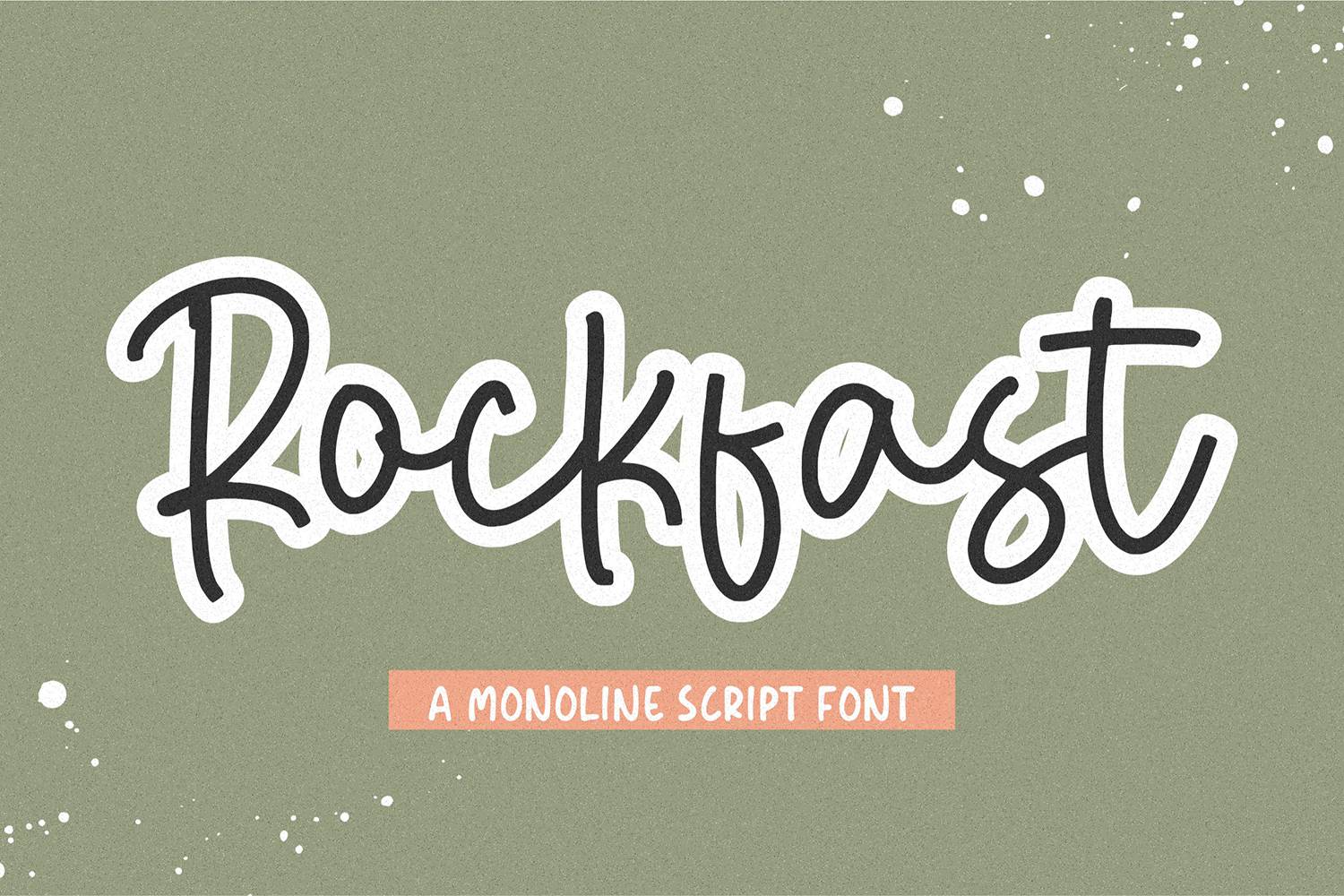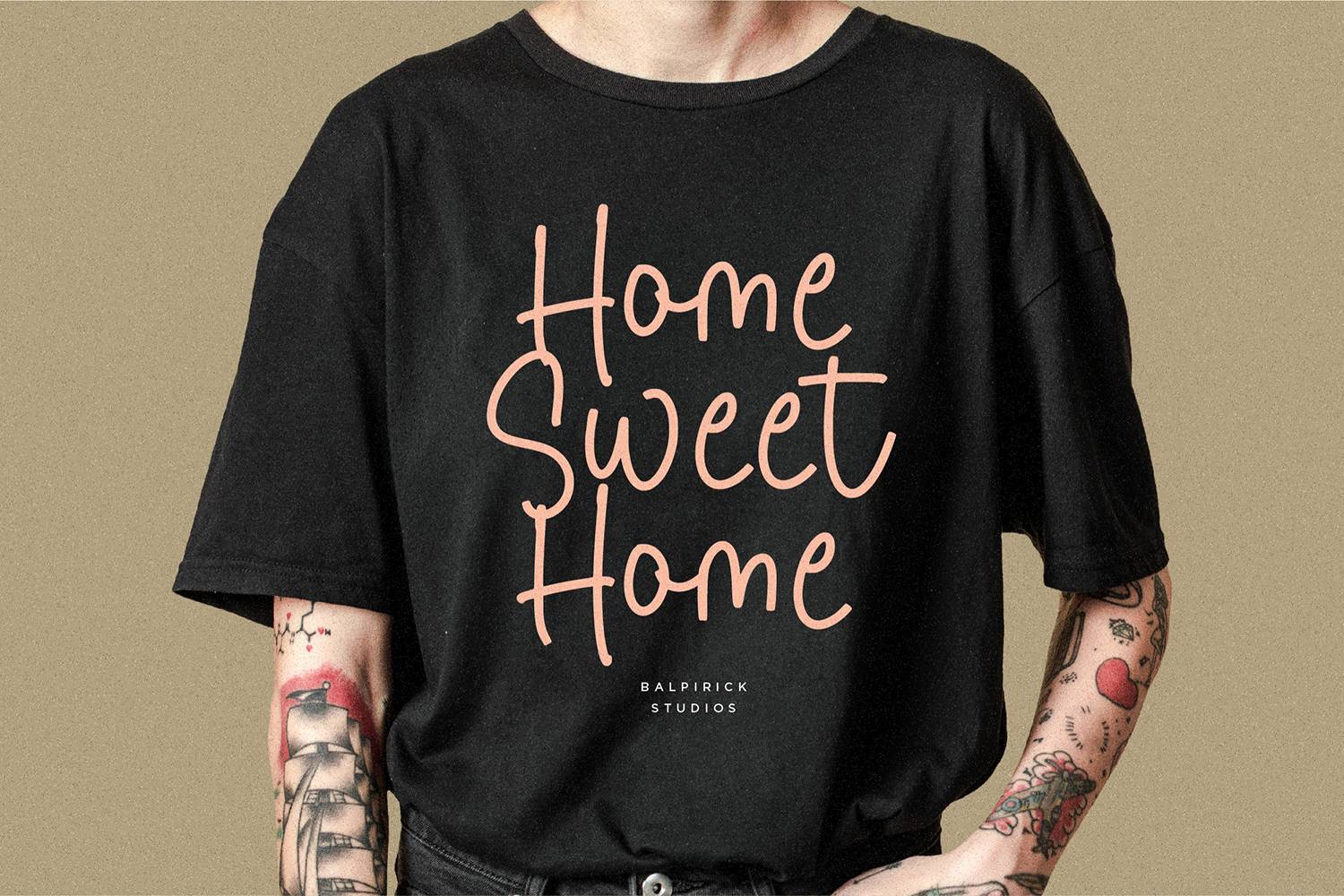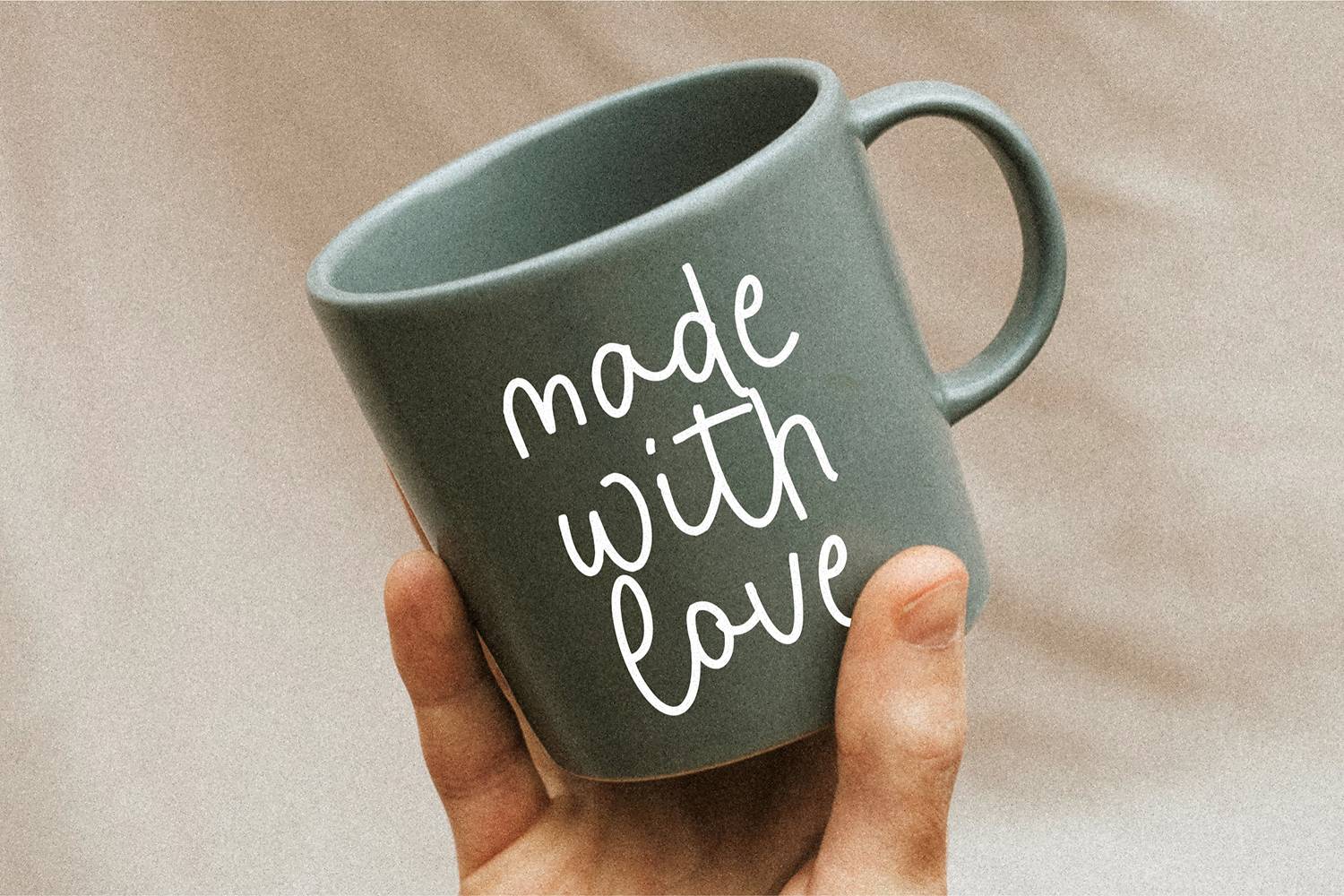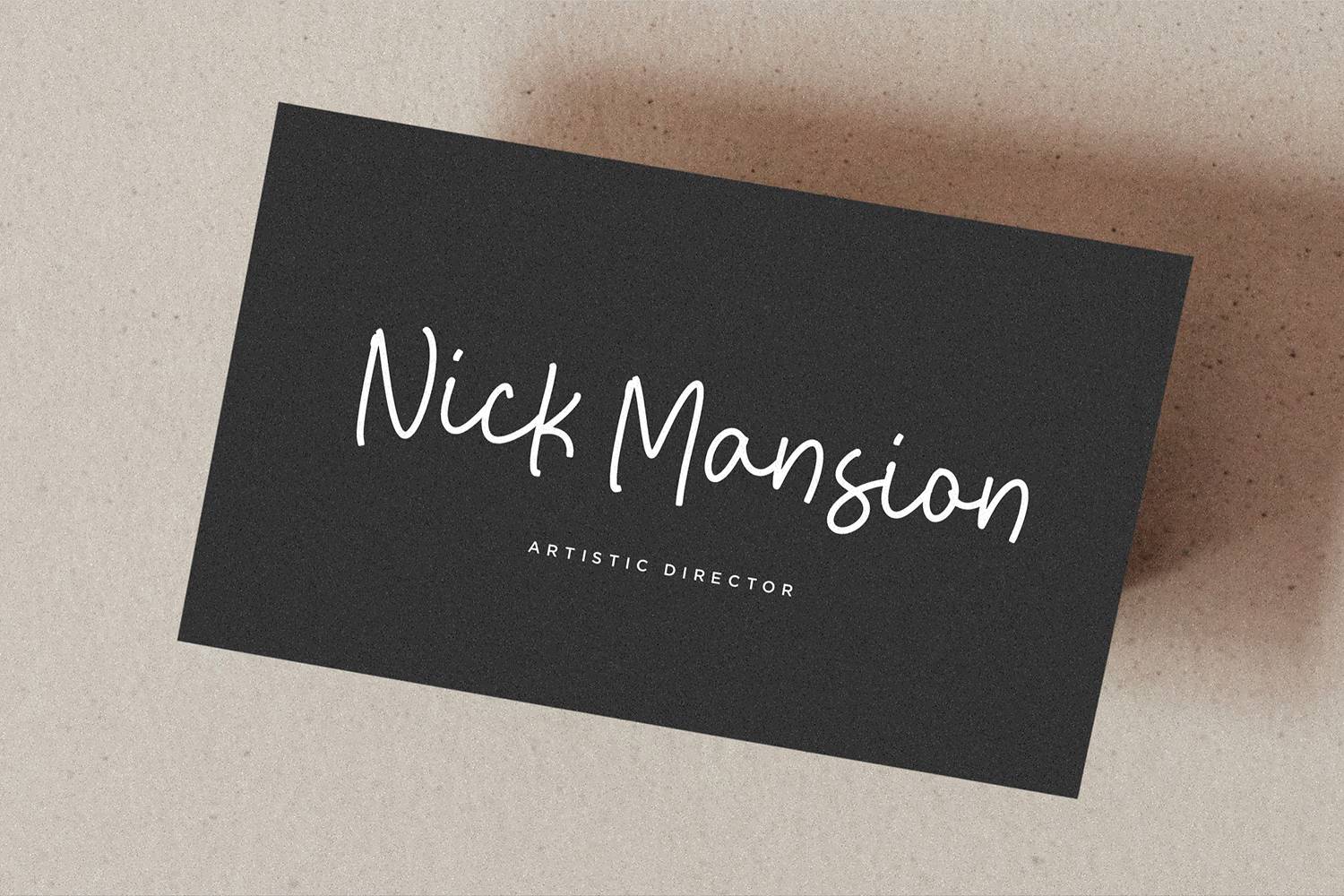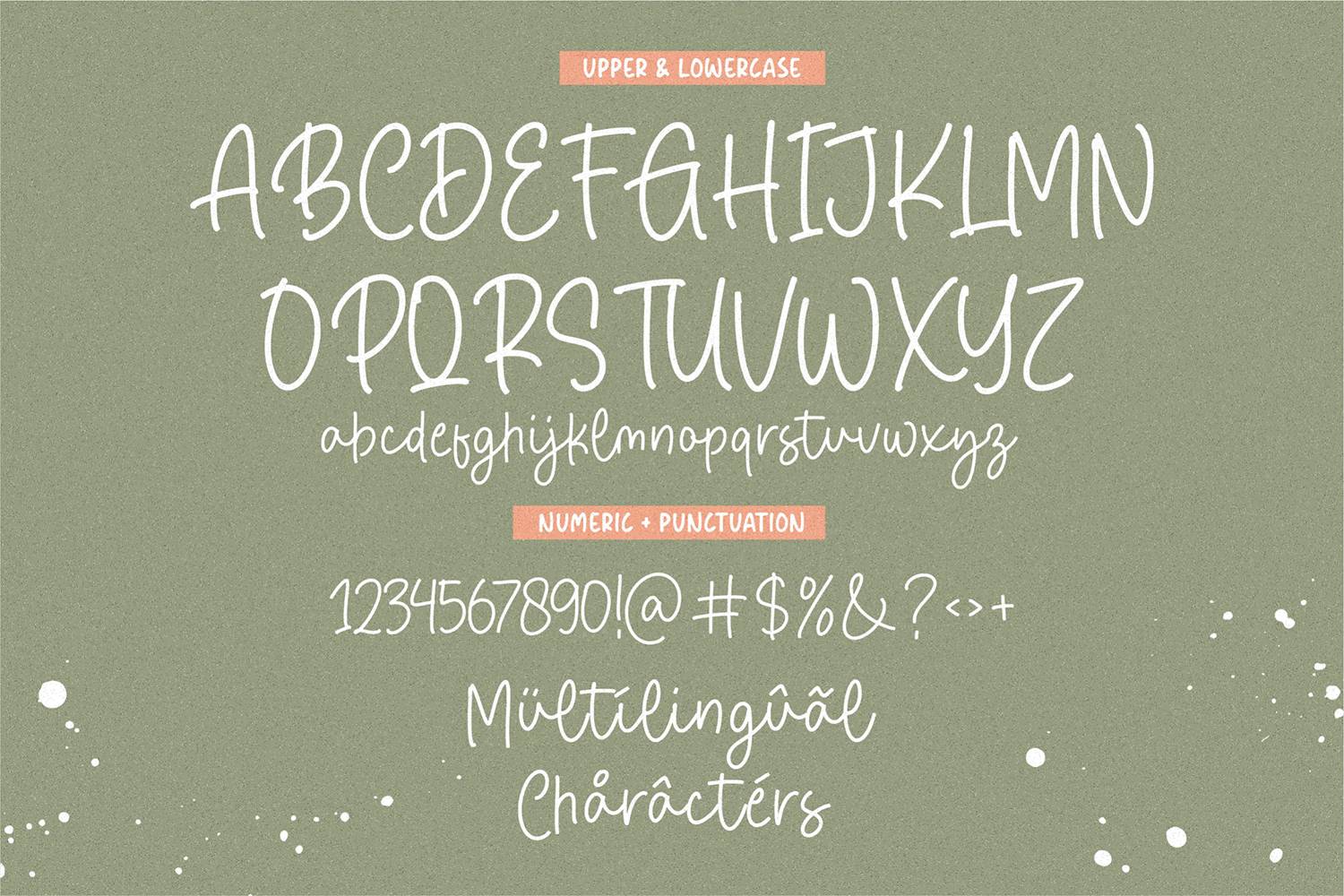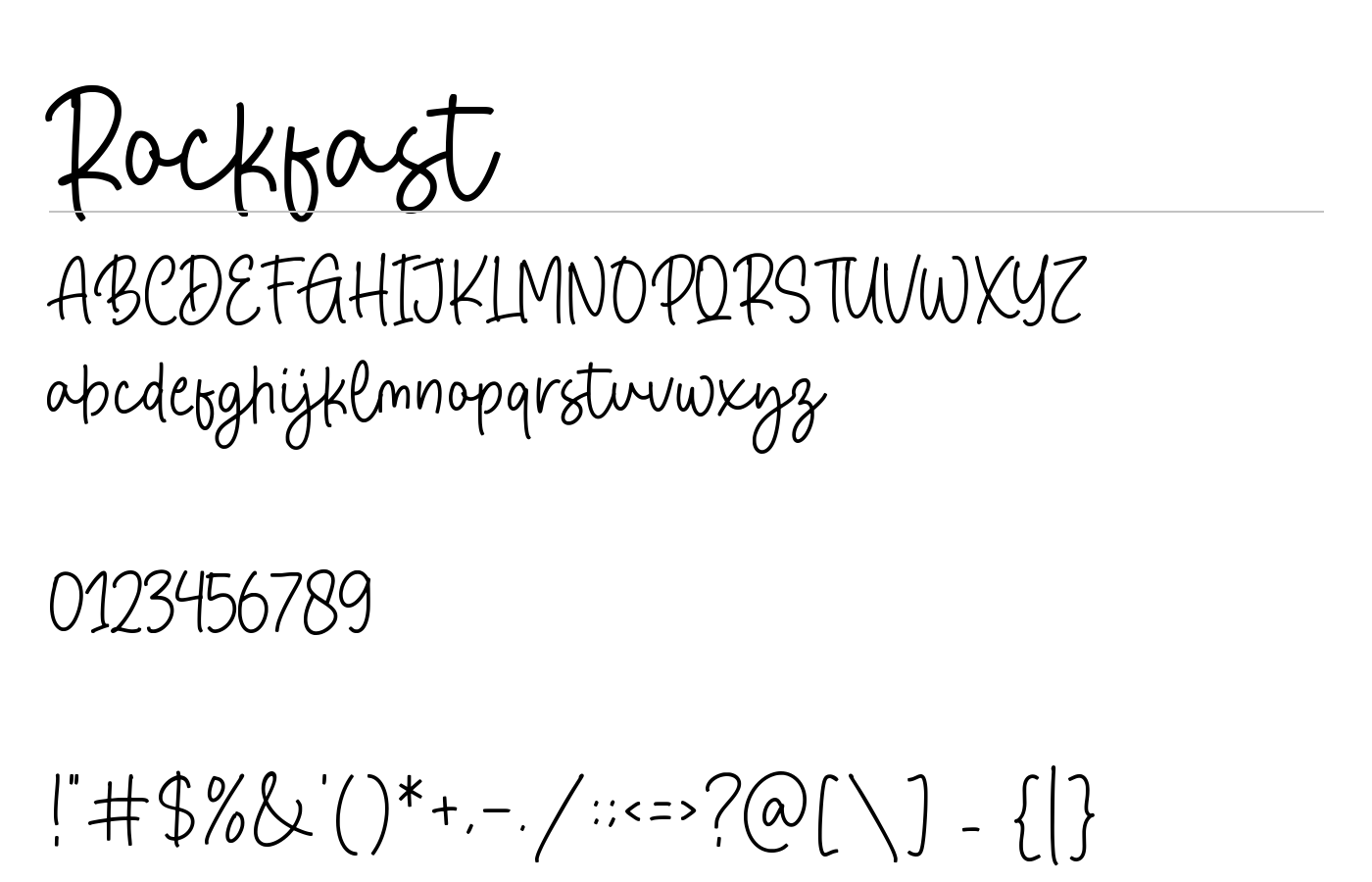
Rockfast is a lively, handwritten script font with a casual and friendly feel, featuring a smooth, natural flow and moderately tall x-height for clear readability. Its thin, consistent stroke and rounded letterforms give it an approachable and informal style, ideal for personal branding, creative projects, and playful designs where a warm, human touch is desired. This font works well for logos, invitations, and social media graphics that benefit from an expressive yet legible hand-drawn look.
Rockfast Font
About Rockfast Font